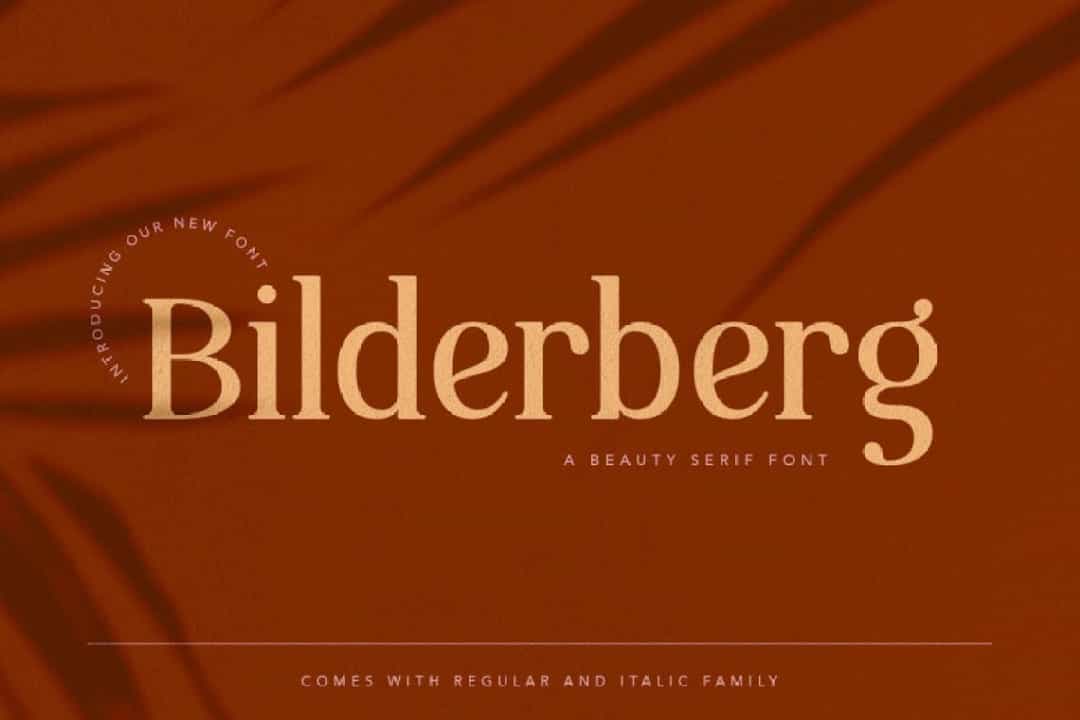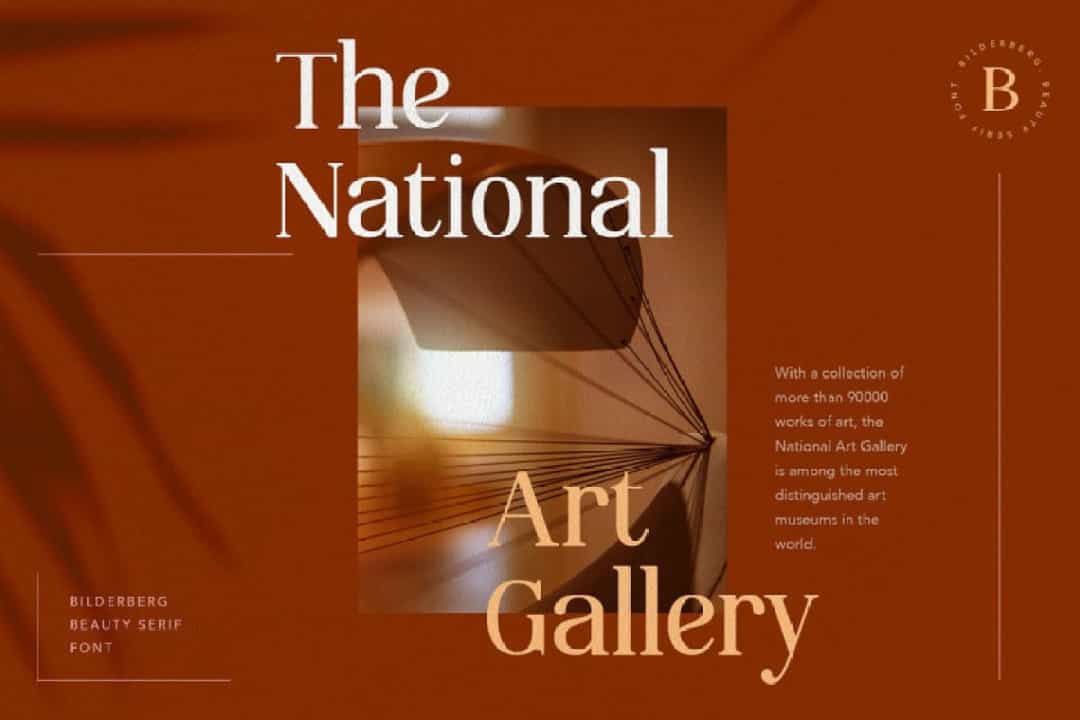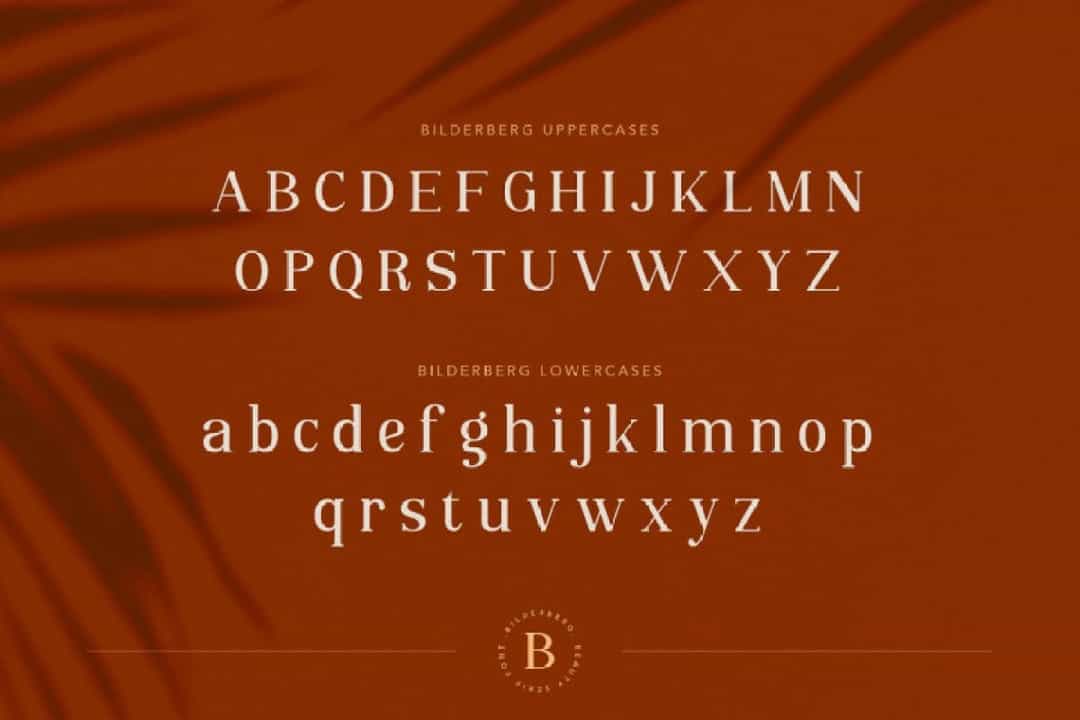
Bilderberg is a beautiful serif font that was designed for aesthetics and comes with both italic and regular styles and language support. A great modern font for today’s world. Bilderberg font is perfectly suitable for branding, logo wedding designs, social media posts, advertisements, quotes, coffee shop packaging, and product designs, label furniture, fashion boutique, and other projects that require high legibility.